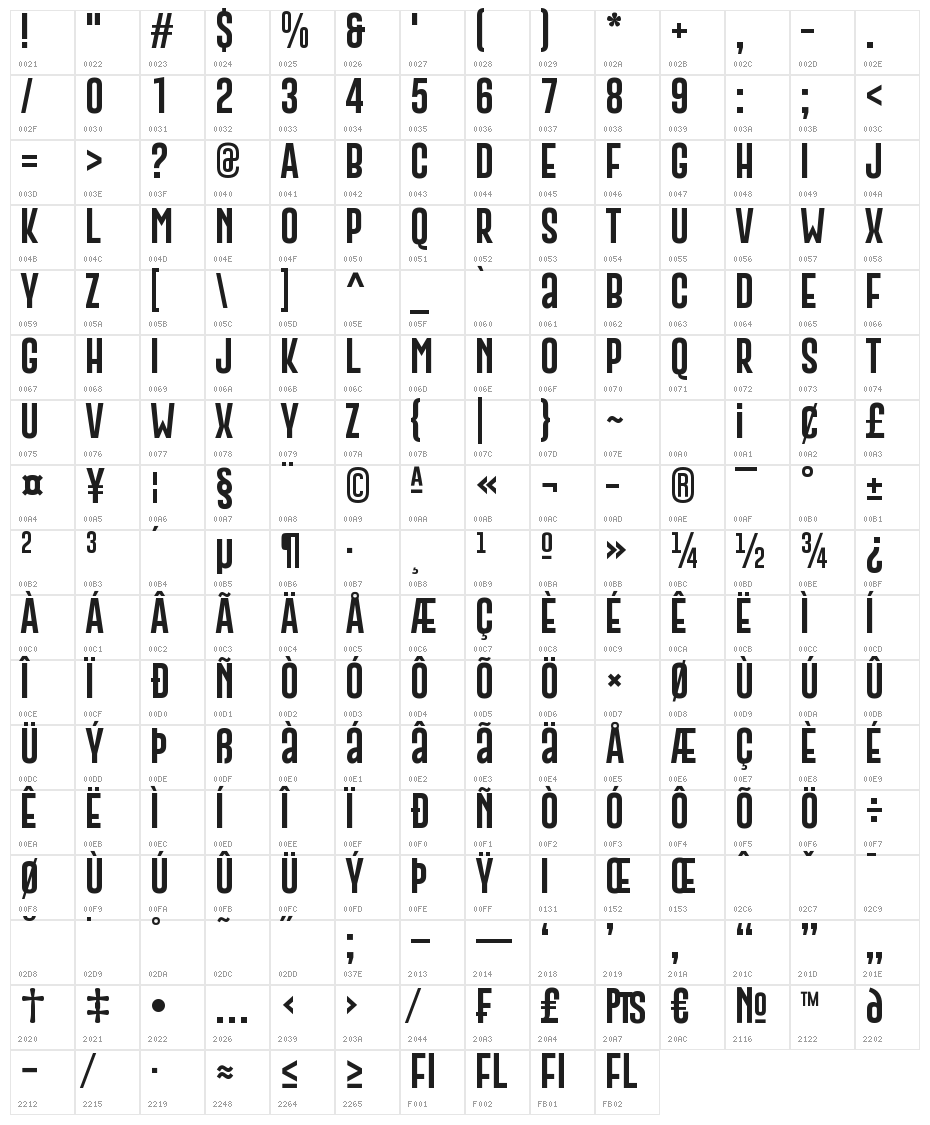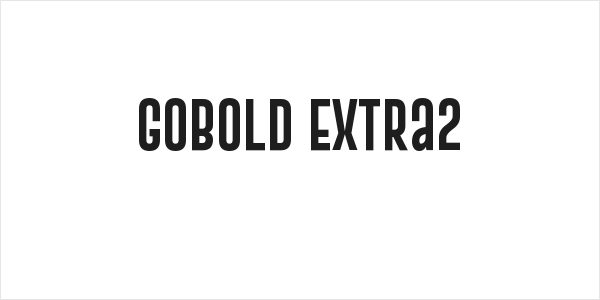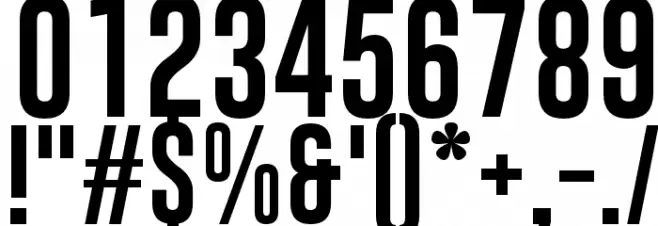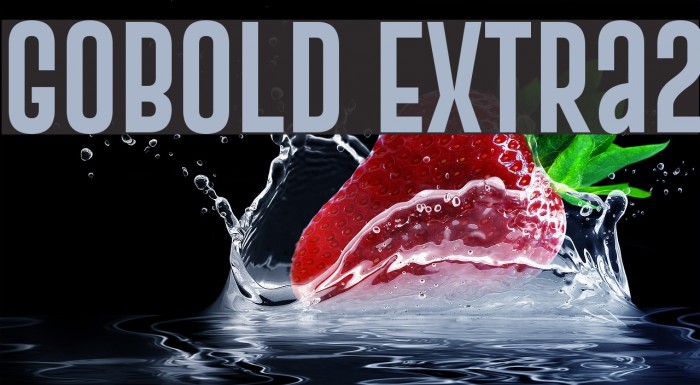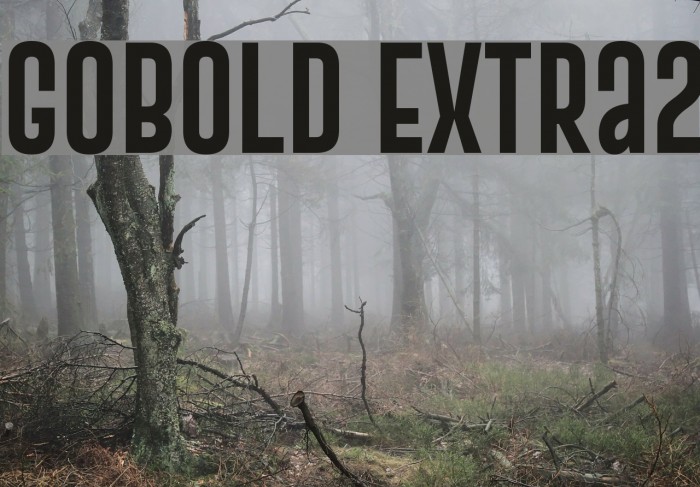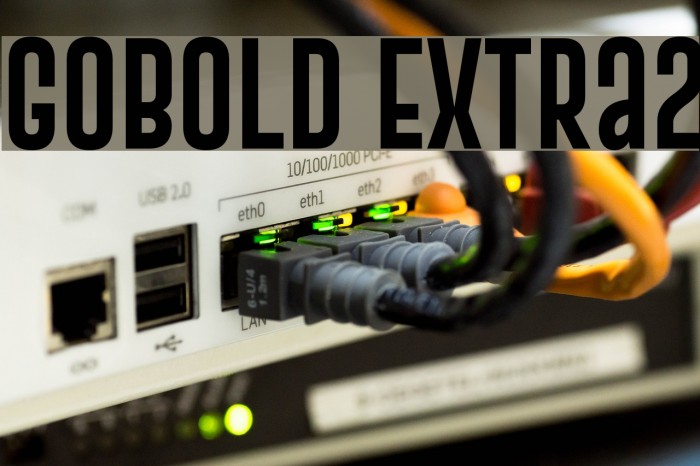
Gobold Extra2 Font
Gobold Extra2 Description
This font exhibits a bold and assertive style, characterized by its tall and narrow letterforms. The uppercase and lowercase letters maintain a consistent height, contributing to a uniform appearance. The numerals are equally bold, ensuring readability and impact. Special characters are designed with the same boldness, making them stand out effectively. The overall design is clean and modern, with a focus on clarity and strength. This font is ideal for projects that require a strong visual presence.
| Proposed Projects | Ideal for headlines, posters, branding, and any project requiring a strong visual impact. |